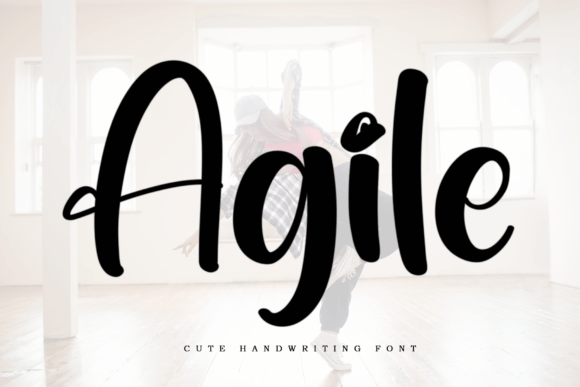
Adding a Touch of Elegance with Agile Font
Have you ever stared at a blank canvas, waiting for that spark of inspiration to strike? It’s a feeling every creative person is familiar with. The moment when everything comes together, and your design project takes shape. For those who have experienced this rush of creativity, we have a secret to share: the Agile Font.
This beautiful handwritten font is designed to add a touch of luxury to any design project. With characters that dance along the baseline, Agile Font is perfect for creating invitations, wedding cards, or any other design that requires a personal and elegant touch.
Whether you’re a seasoned designer or just starting out, Agile Font is a valuable addition to your toolkit. Its versatility and sophistication make it an ideal choice for a wide range of projects, from branding to editorial design. With Agile Font, you’ll be able to create designs that truly stand out and leave a lasting impression.
Key Features of Agile Font
- Size and Resolution: Agile Font is designed to be highly legible at various sizes, with a minimum recommended size of 12 points and a resolution of 300 DPI for optimal readability.
- Unique Characteristics: Agile Font features a unique blend of modern and traditional elements, with a focus on clarity and readability in digital environments.
- Font Style: Agile Font is available in a range of weights, from Light to Bold, allowing users to customize the font to suit their needs.
- Language Support: Agile Font supports a wide range of languages, including Latin, Cyrillic, and Greek alphabets, making it a versatile choice for global applications.
- Scalability: Agile Font is designed to scale well across various devices and screen sizes, ensuring a consistent and high-quality reading experience.
Agile Font Review
I’ve had the chance to work with Agile Font, and I must say it’s a decent addition to any designer’s toolkit. ✨ One of the things that works well is its versatility. It comes in multiple weights, making it suitable for a wide range of applications, from body text to headings. The font also has a clean and modern look that works well with both digital and print materials.
Another strength of Agile Font is its legibility. The font is easy to read, even at small sizes, which is essential for web design and other applications where text is often displayed in a condensed format. ✨ Additionally, the font supports most languages, making it a great option for multilingual projects.
- ⚠️ Limited expressiveness: While Agile Font is a solid choice for most projects, it may lack the emotional impact that some other fonts can provide. It’s not particularly exciting or memorable, which may be a drawback for designers looking to make a statement.
- ⚠️ Not ideal for display typography: Agile Font is better suited for body text and captions rather than display typography. It can look a bit dull when used for large headlines or titles.
Overall, Agile Font is a reliable and workhorse font that gets the job done. While it may not be the most exciting option, it’s a safe choice that will likely please most clients and stakeholders. If you’re looking for a font that’s easy to read and versatile, Agile Font is definitely worth considering.